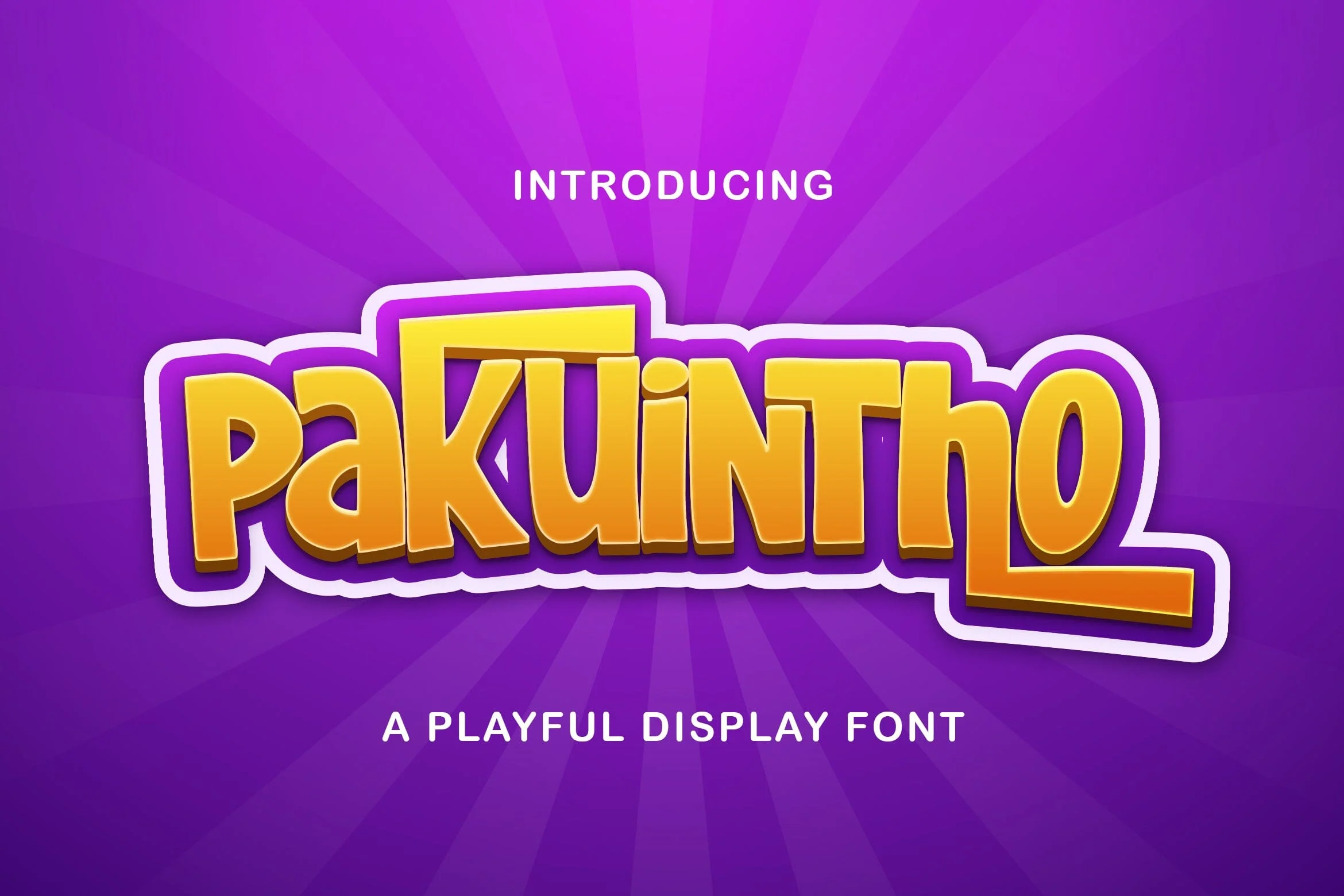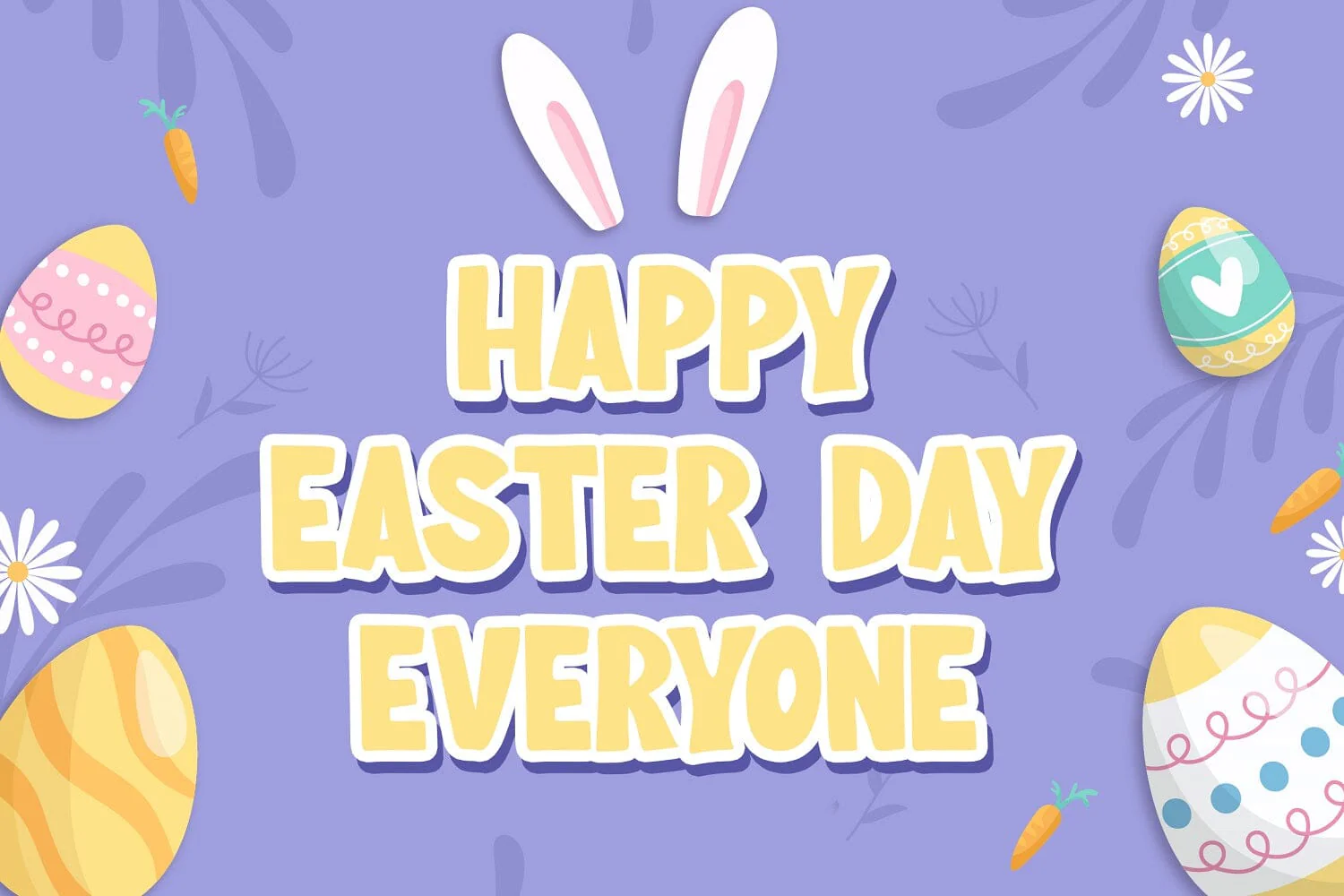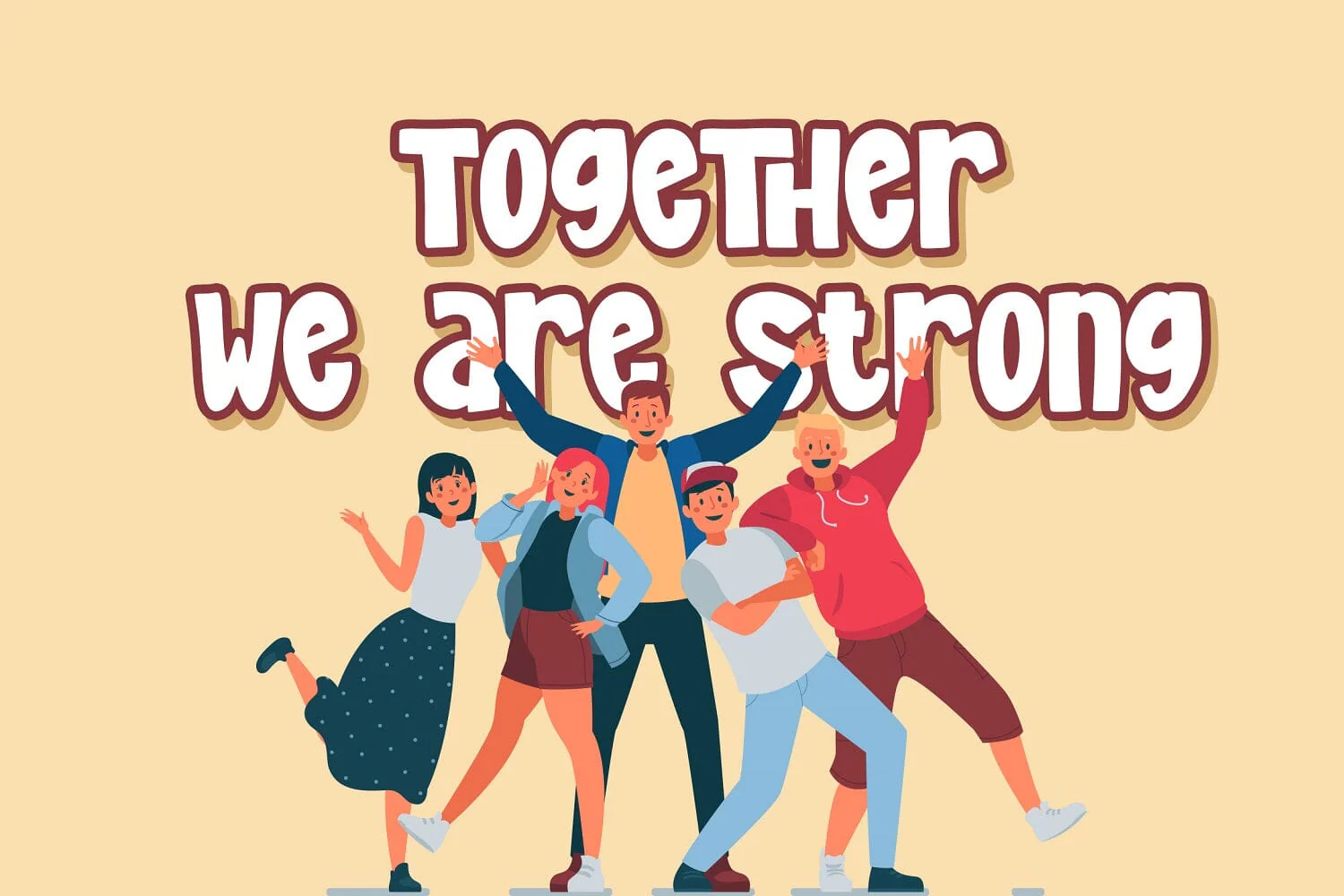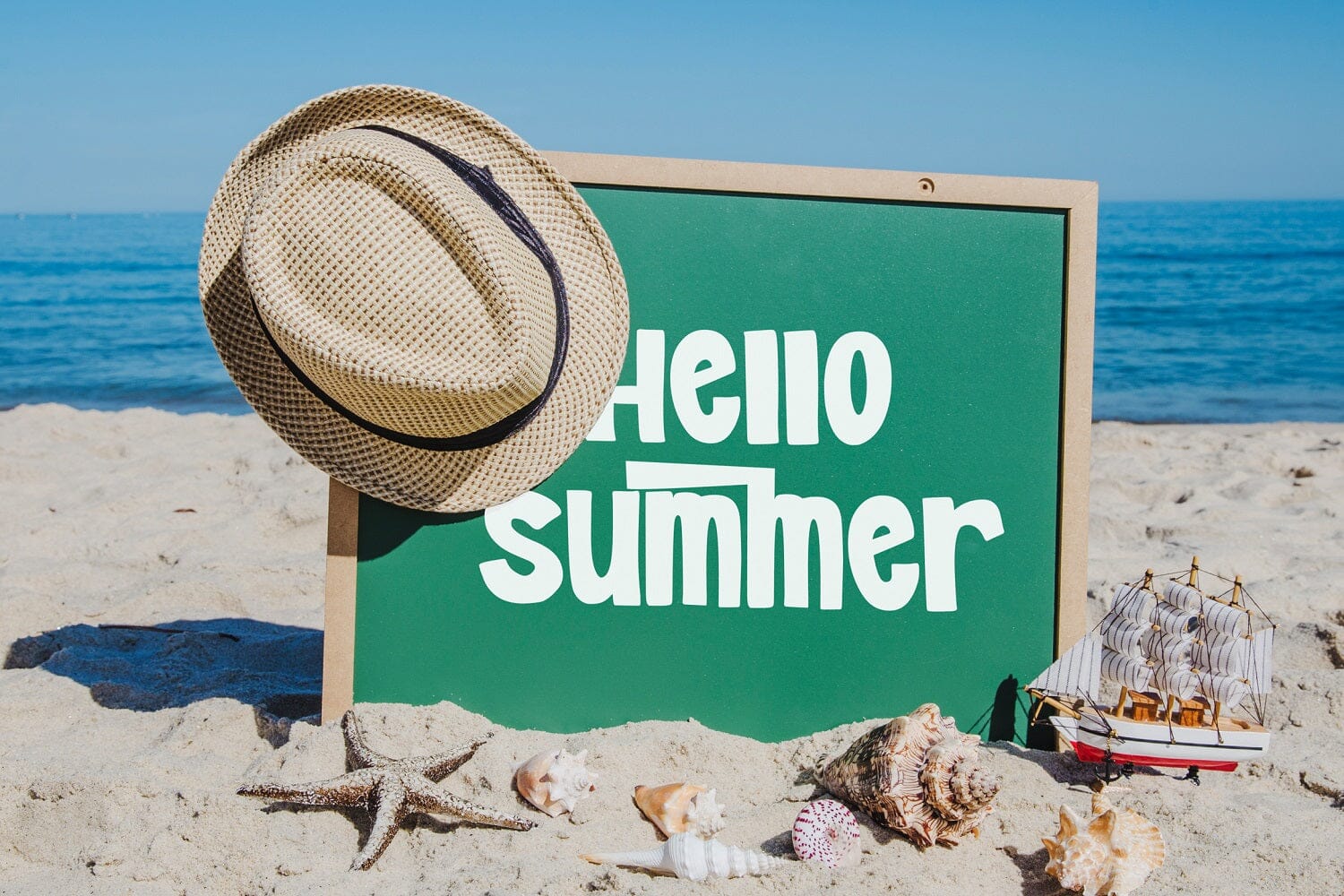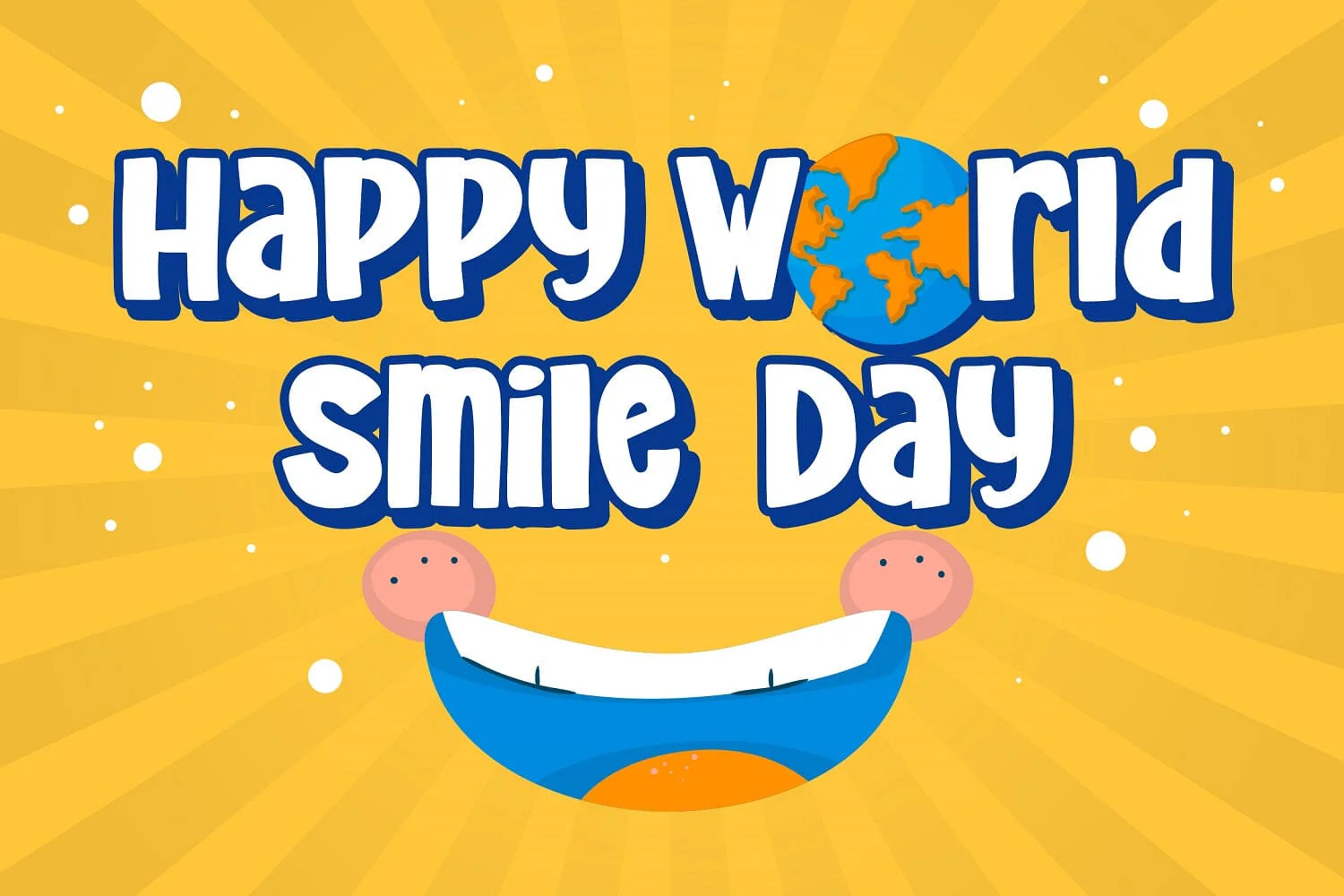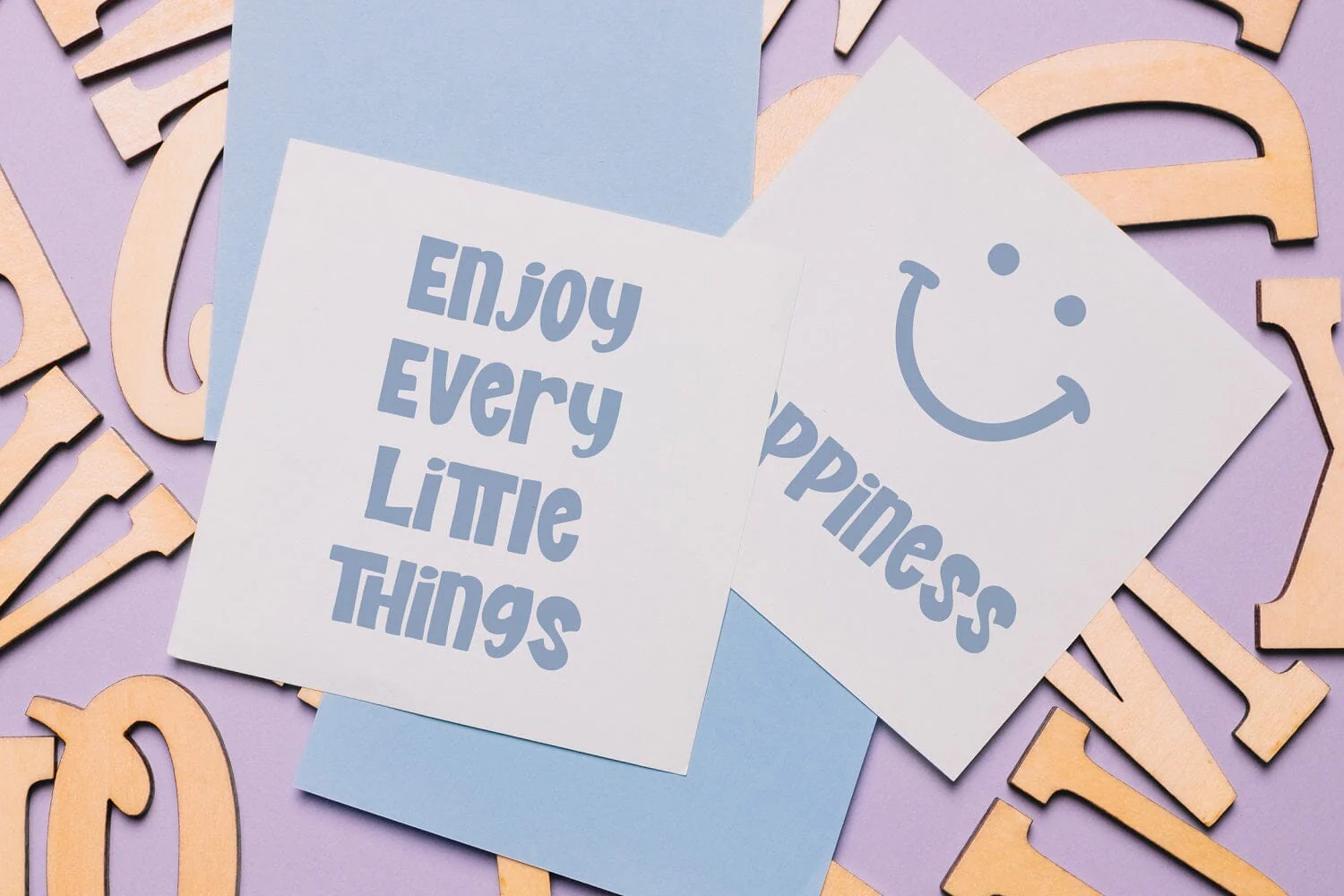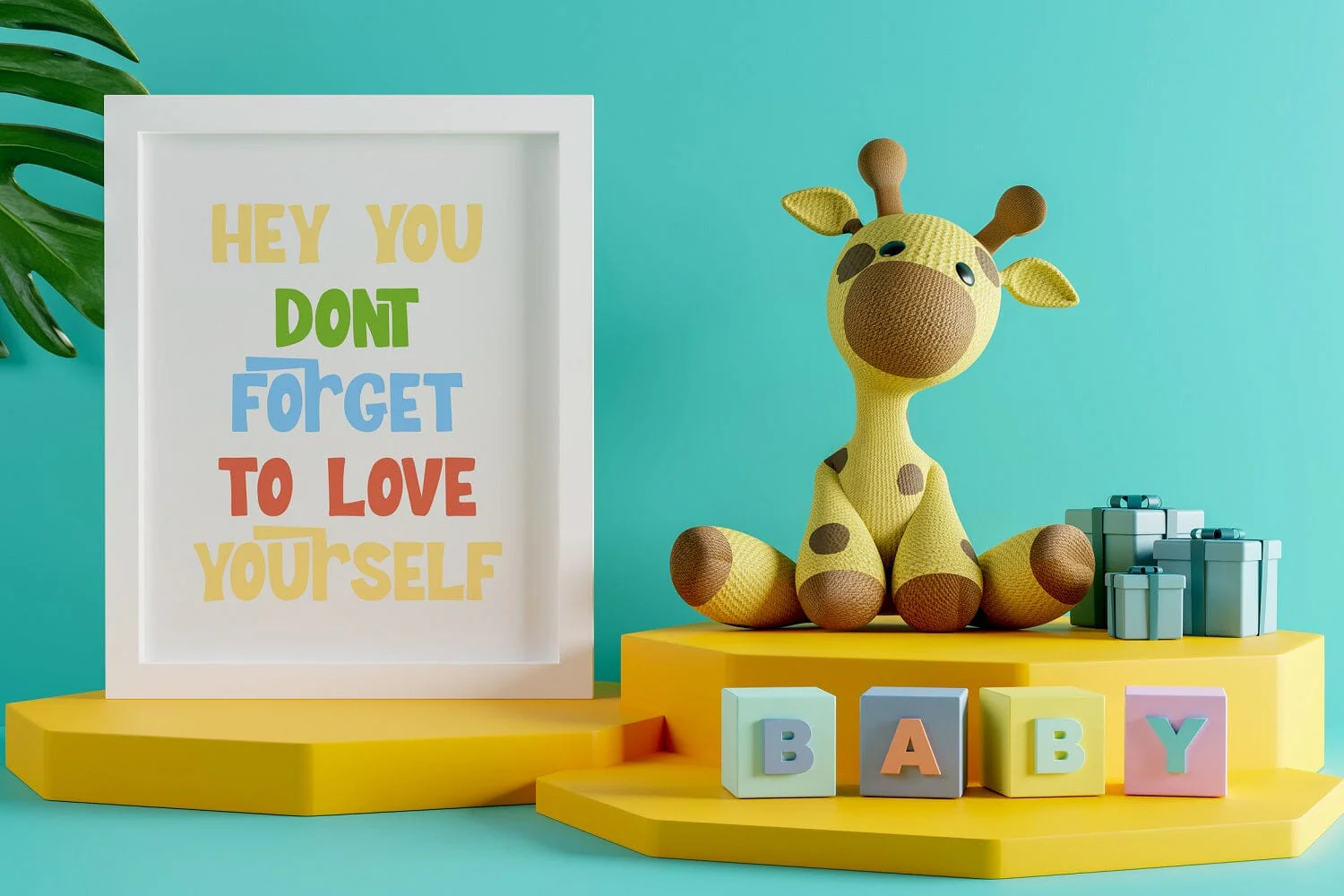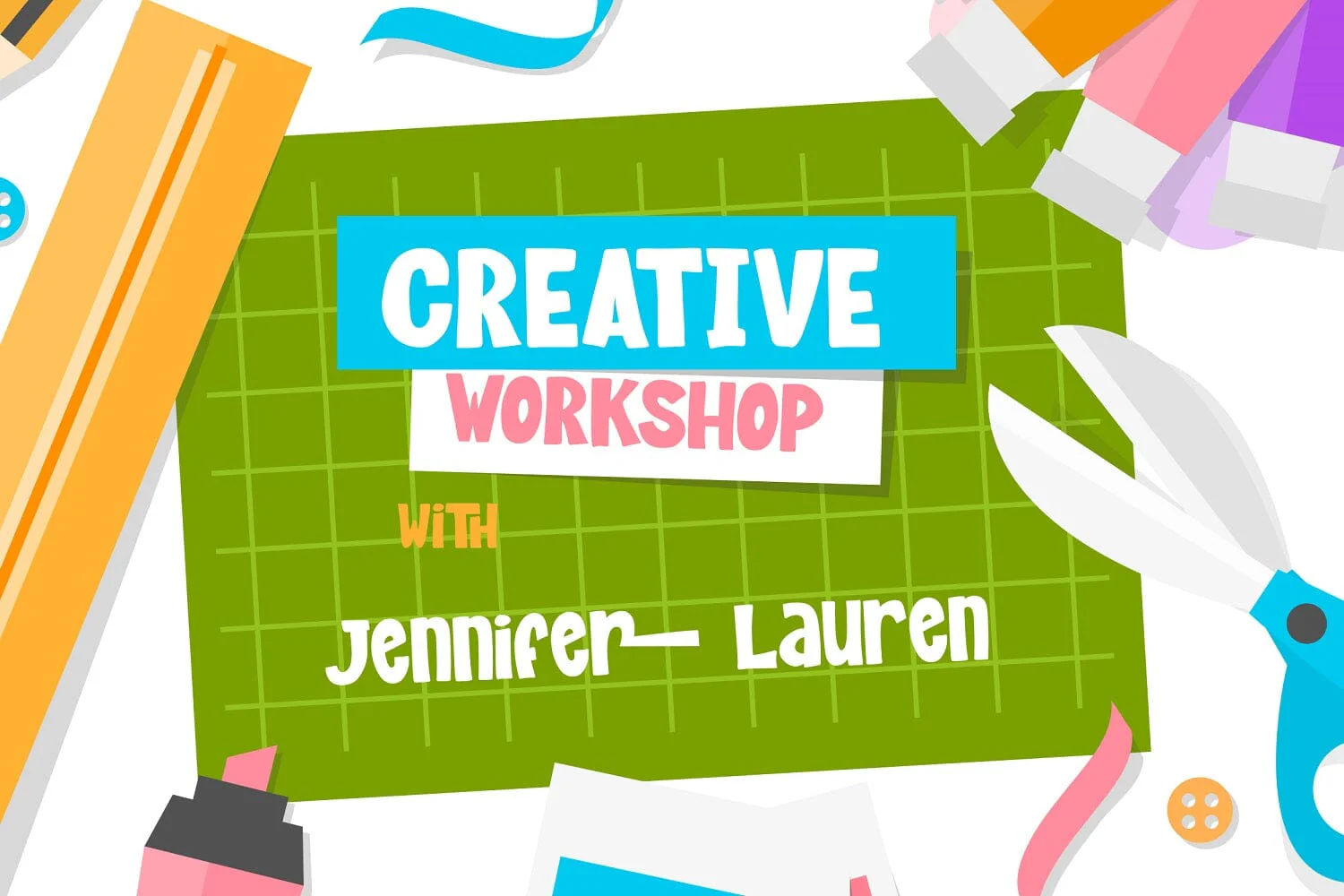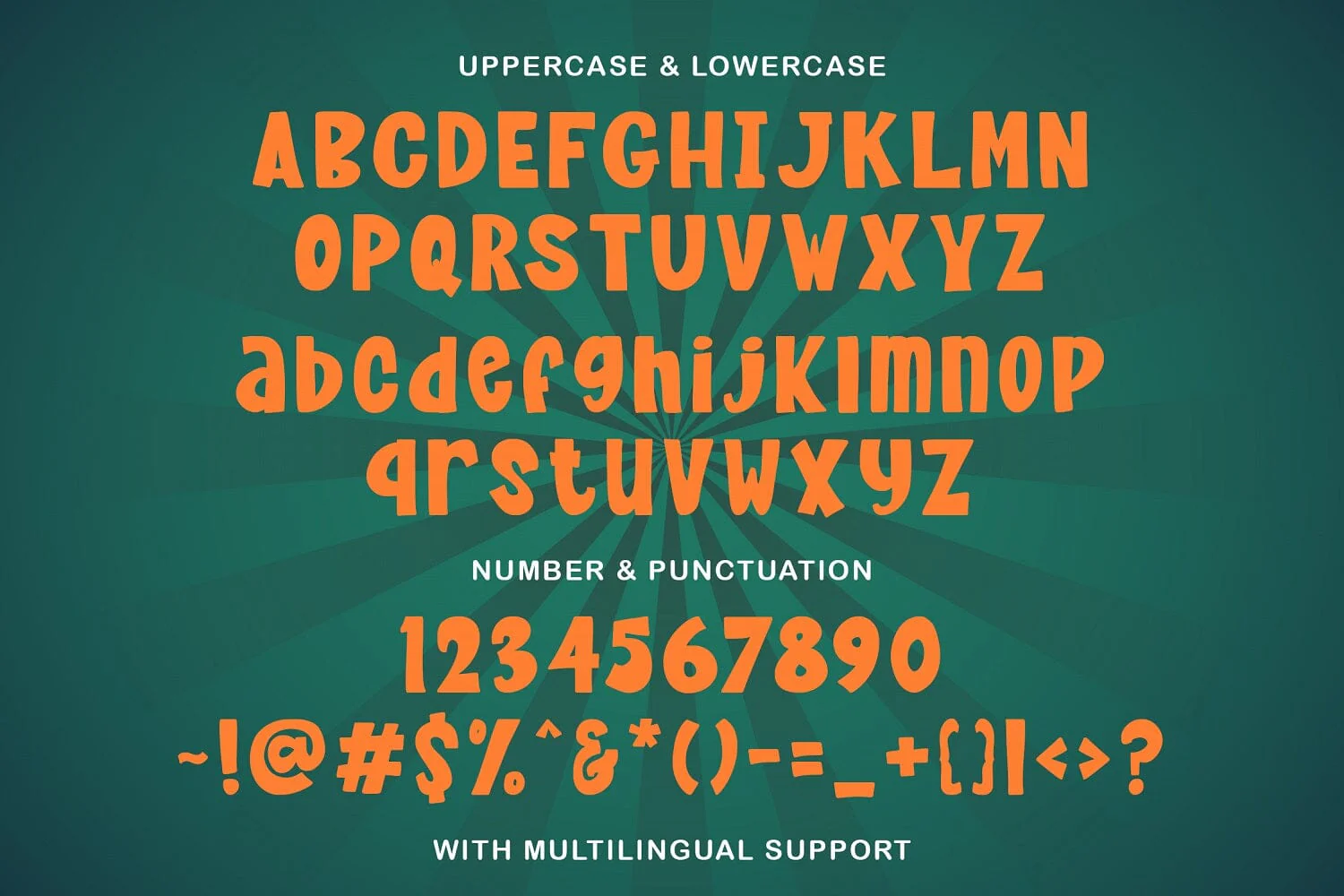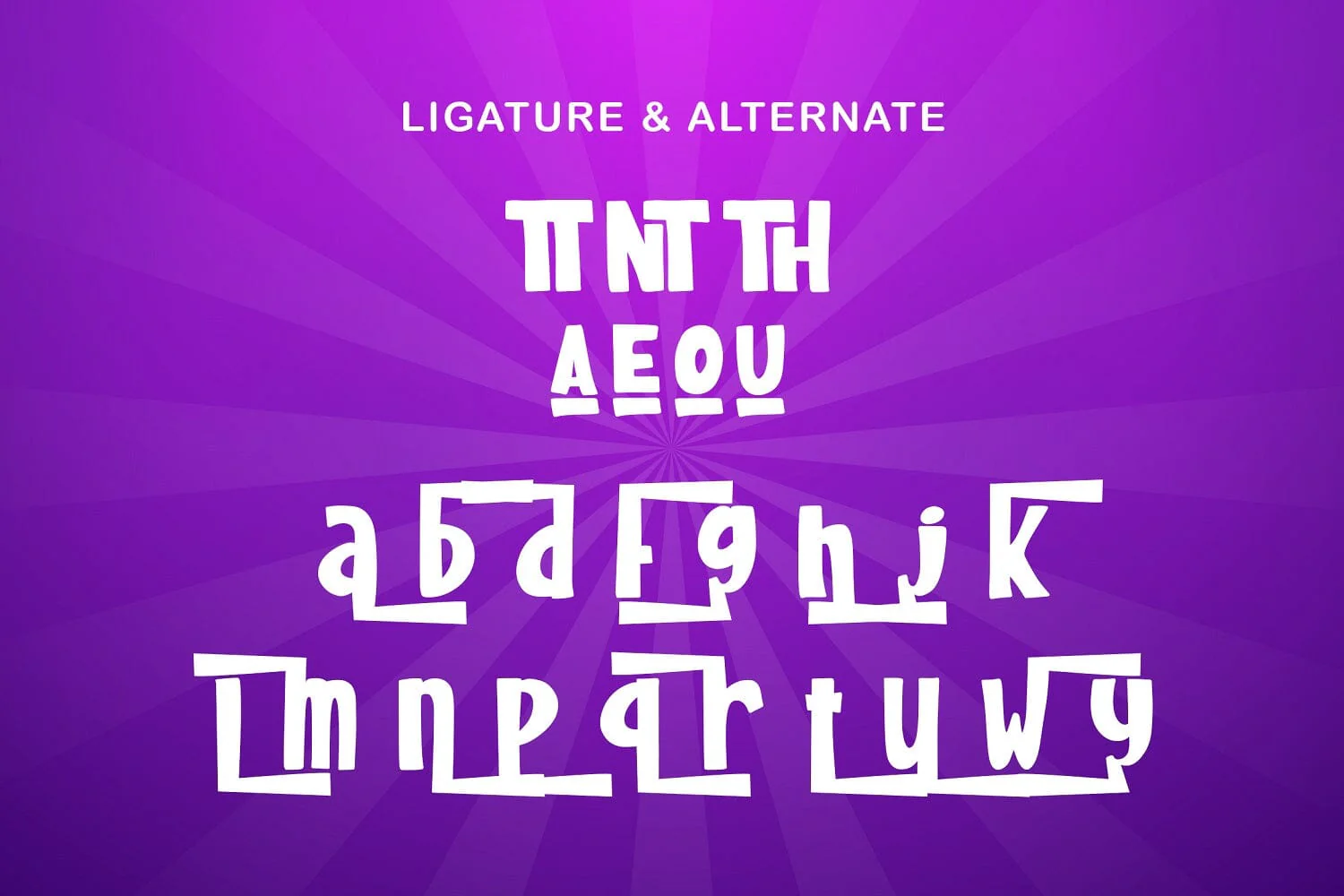
Pakuintho - Playful Display Font
Introducing Pakuintho - Playful Display Font
Pakuintho is a fun display font. Playful and fresh, this font will be a hit for each of your children or school projects!
- Alternates & Ligatures
Introducing Pakuintho - Playful Display Font
Pakuintho is a fun display font. Playful and fresh, this font will be a hit for each of your children or school projects!
- Alternates & Ligatures